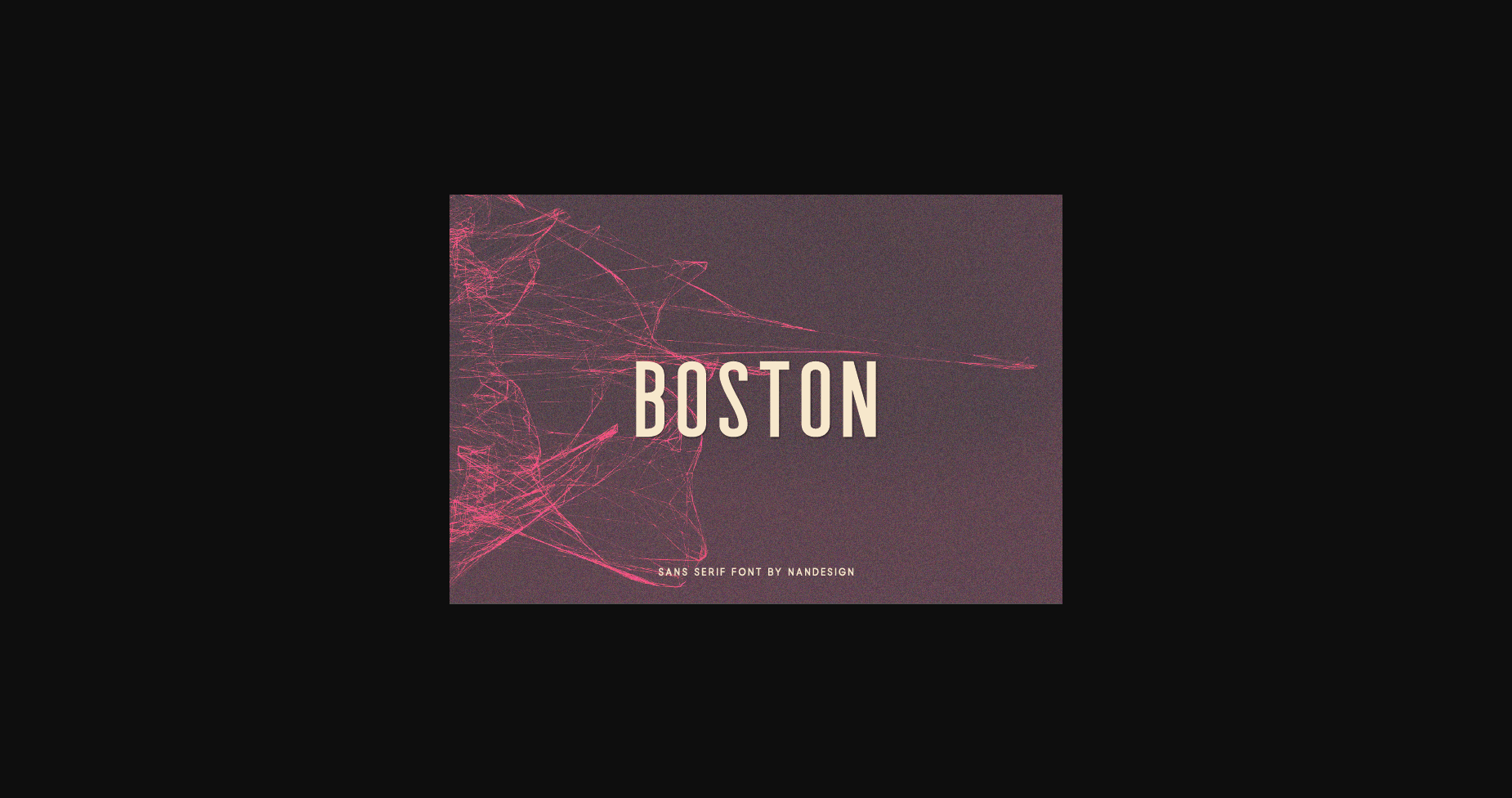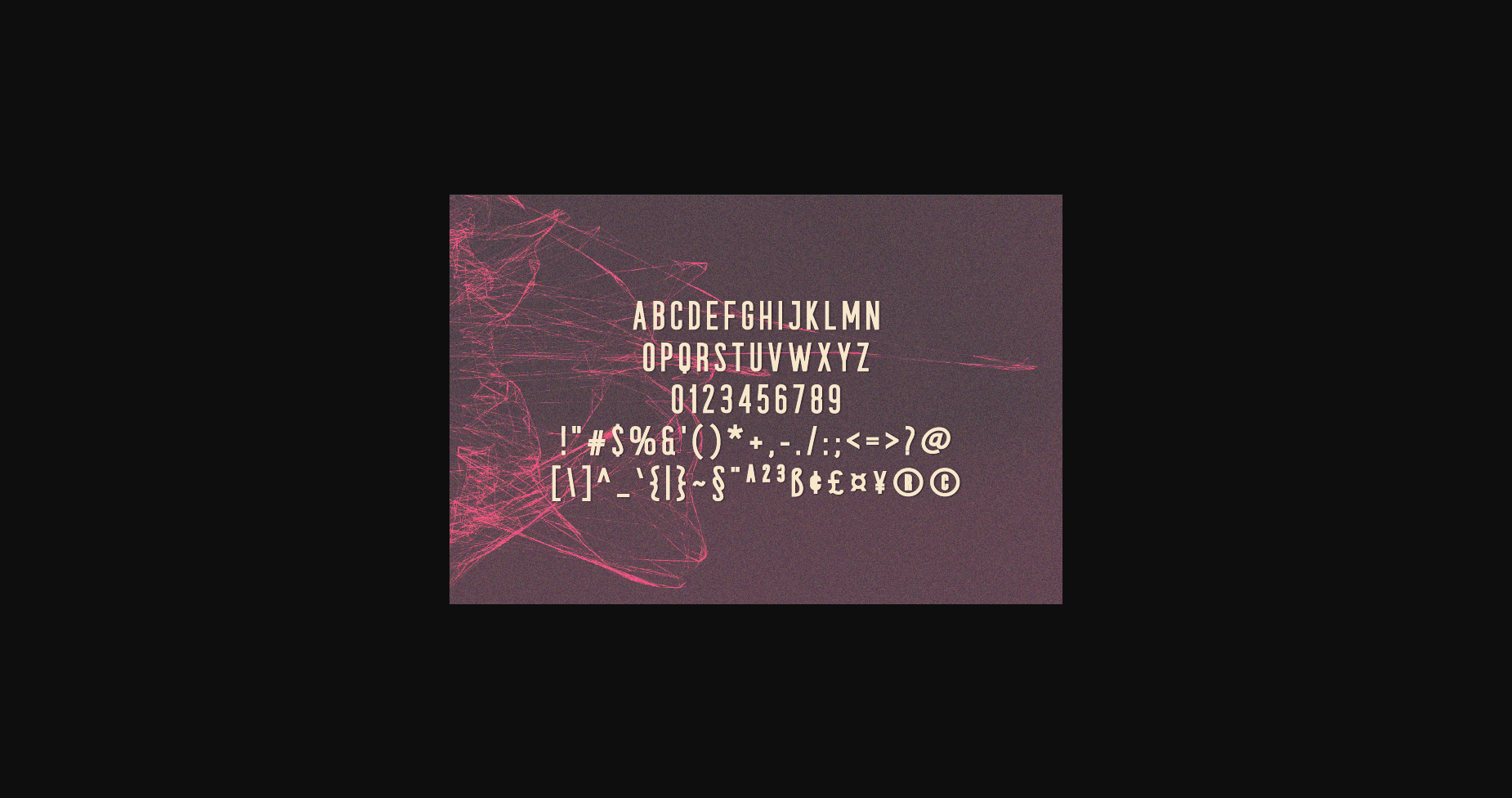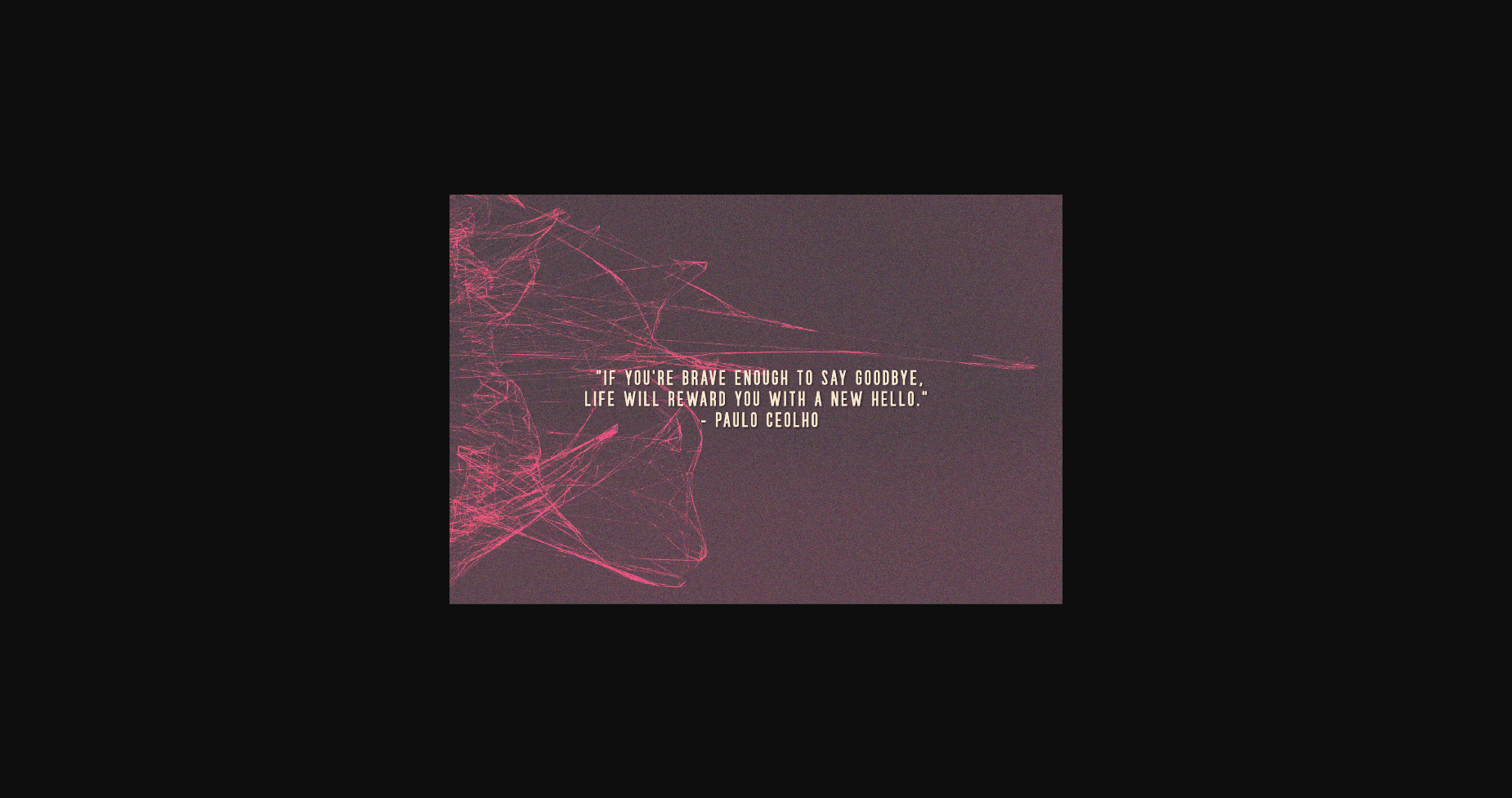
Boston Font
About Boston Font
Boston is a clean and simple lettered sans serif font, designed to complement every project you’re working on.
Use to create beautiful headings, gorgeous invitations, stunning logos, and so much more!